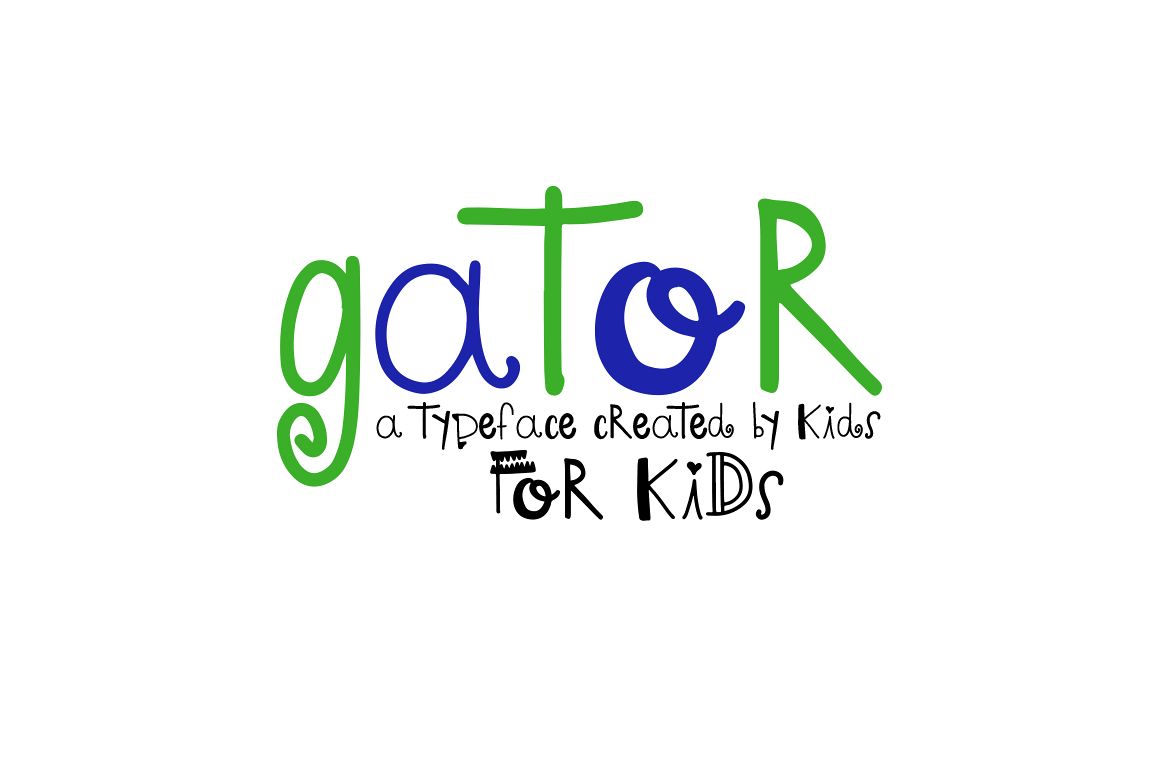
Gator - A font by kids, for kids
Hello! Meet GATOR!
This was a super special project for me, and I am quite proud of the result! A little backstory...I was asked by a sweet friend and teacher to attend the annual career fair. I was at a complete loss as to what to talk about because honestly, im not a big talker in front of crowds (kids OR adults). Another awesome friend gave me the idea to create a font out of the kids handwriting and donate ALL the proceeds back to the school. Totally a WIN WIN!
The kids get to see THEIR handwriting in a super adorable font AND the school gets a donation from a local business (me!).  I wish I could tell you how UTTERLY excited I am for you to try out Gator! The letter styles were created by Bend Gate Elementary Students K-5th grade. I think they did an AMAZING job.